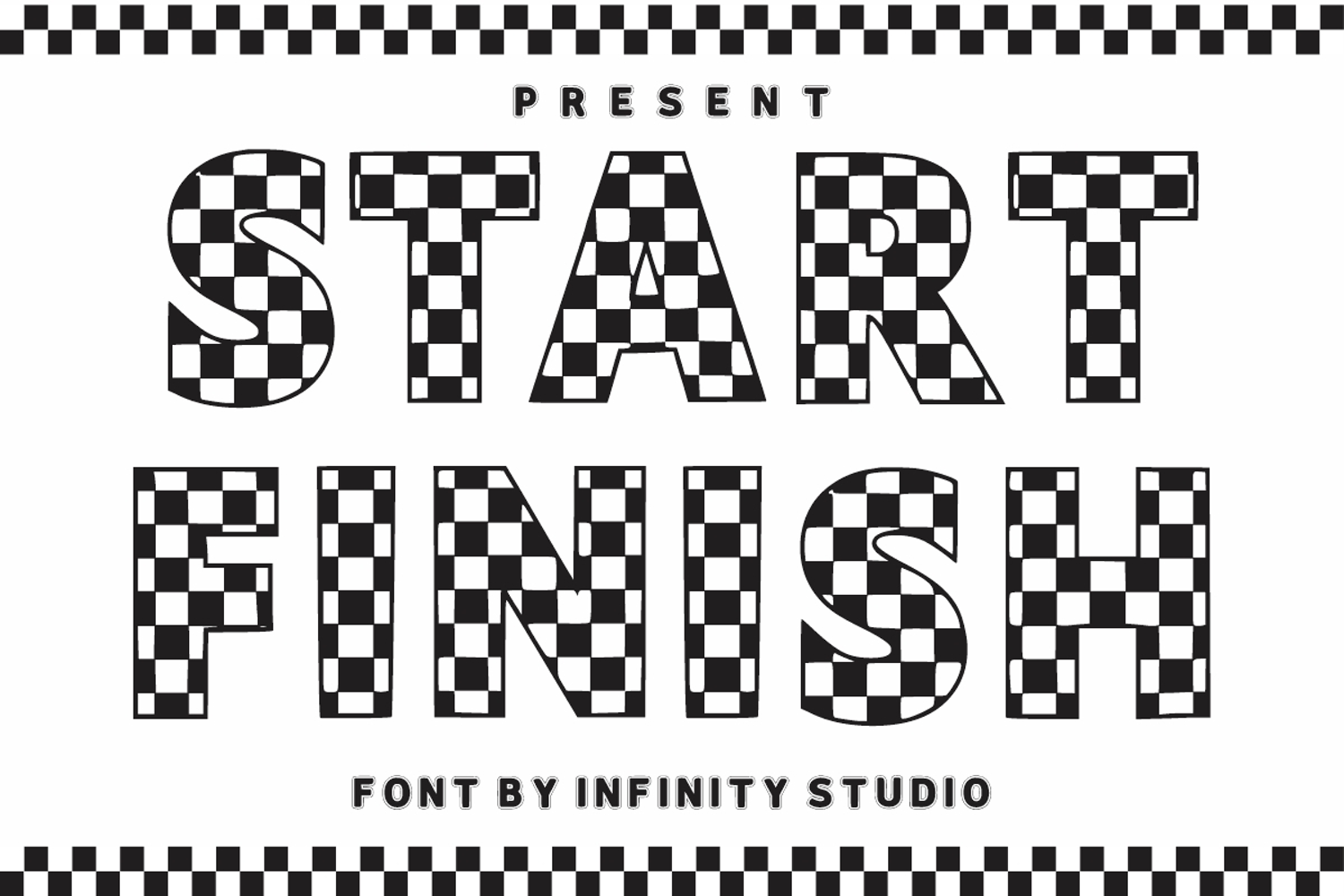
Start Finish
Start Finish is a cool and bold display font. It features a dynamic effect and a unique charm. It is perfect for headlines, whether for sporting events, automotive posters, logos or monogram designs. This font has the potential to become your favorite go-to font for each of your automotive projects.